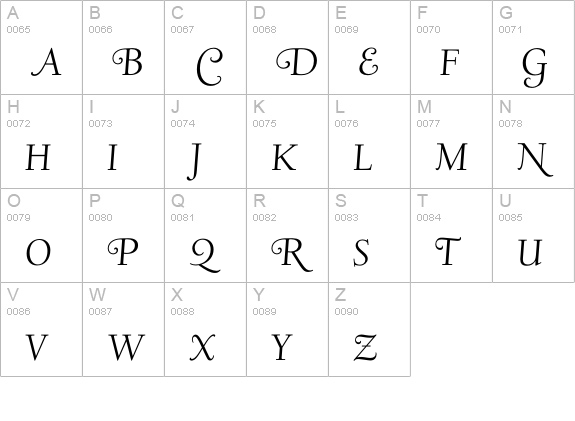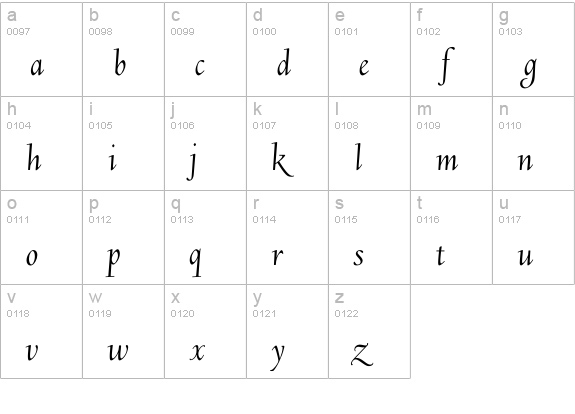
DeepdeneHW-Italic Font Details
DeepdeneHW-Italic is a distinctive, italic variant in the DeepdeneHW typeface family \xE2\x80\x94 well suited to design and typography projects.
DeepdeneHW-Italic is a beautifully crafted font with a touch of elegance and sophistication. Its sleek and modern design makes it perfect for a wide range of projects, from branding to editorial design. The italic style adds a sense of flair and dynamism to any text, making it stand out in a subtle yet impactful way. The flowing curves and sharp angles of DeepdeneHW-Italic create a harmonious balance that is both eye-catching and easy to read. Whether you're designing a logo, a poster, or a website, this font will add a touch of class and professionalism to your work. And the best part? DeepdeneHW-Italic is available for free download at FontsMarket.com. Now you can enhance your designs with this stunning font without breaking the bank. Don't miss out on this incredible opportunity to elevate your projects with DeepdeneHW-Italic - download it today and see the difference it can make!